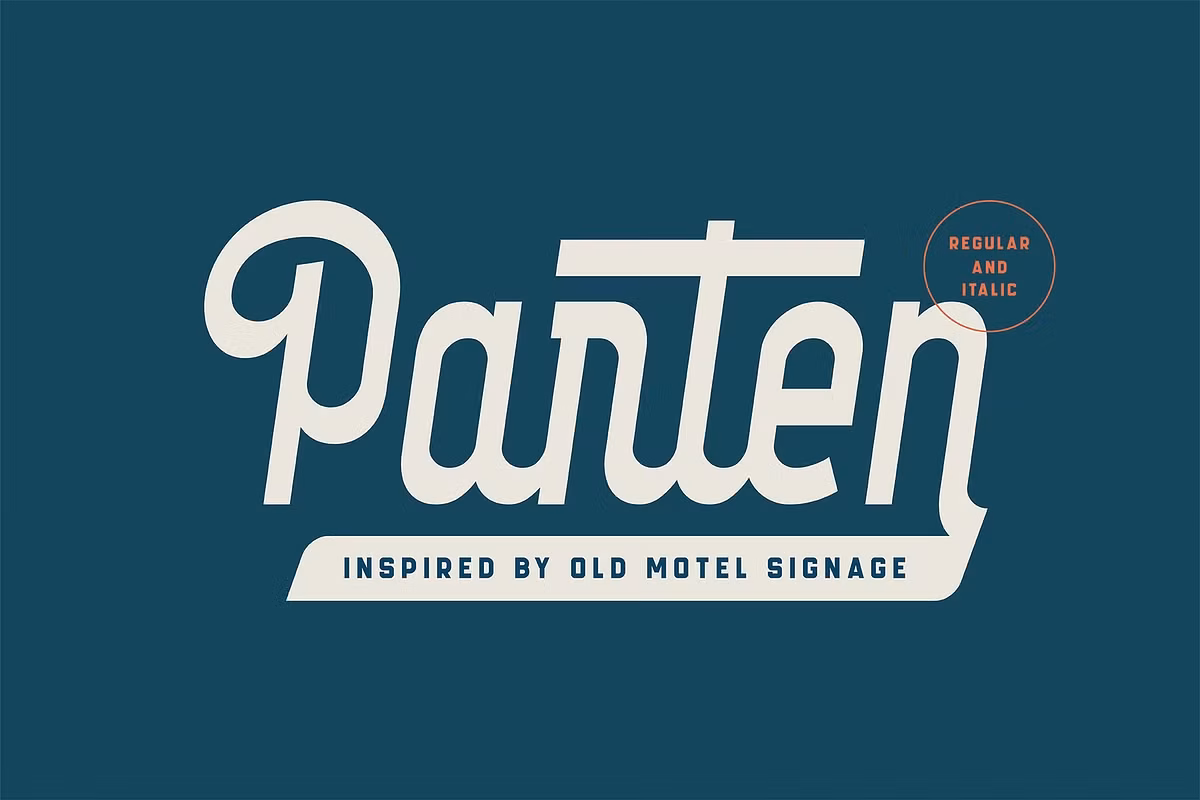
Add a refined and modern touch to your designs with the Parten Font Free Download — a clean, elegant typeface that speaks with sophistication and clarity. With its balanced proportions, sleek lines, and timeless appeal, Parten is ideal for branding, packaging, editorial layouts, websites, and high-end presentations.
This font’s minimalist aesthetic makes it incredibly versatile — whether you're crafting a luxury fashion label, designing a lifestyle magazine spread, or creating a sleek logo, Parten delivers a professional and stylish impact without being overcomplicated.